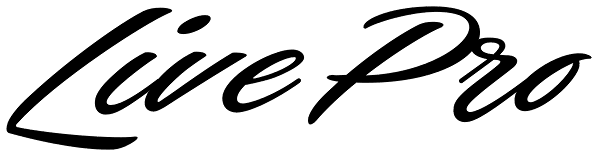
Live
After Bird Script's ballet, Sproviero comes with these fast strokes, resulting in a font full of life and a youthful spirit— hence its name: Live. “Brush lettering is to me the most beautiful way to express your feelings at the moment of writing...